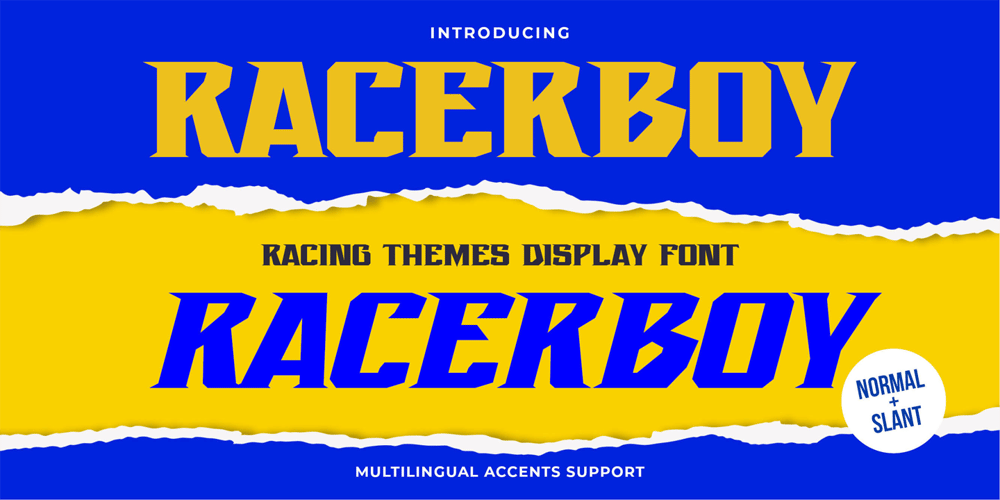
Racerboy Font Family was designed by Abdul Malik Wisnu, Anang Fibriyanto and published by Gassstype. Racerboy contains 1 styles and family package options. Here comes a New Font,Introducing Racerboy is a Racing Themes Display Font .Racerboy has 2 is Normal and Slant styles is perfect for the purposes of designing templates, brochures, videos, advertising branding, logos and more.